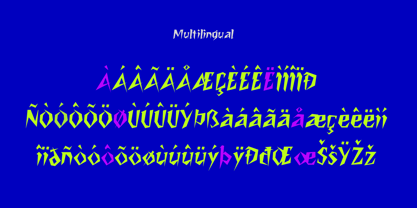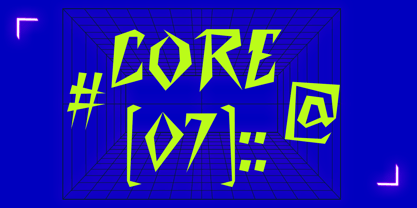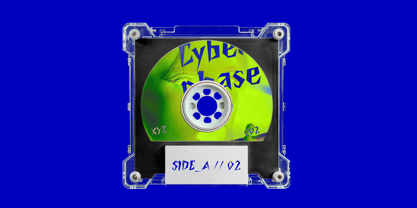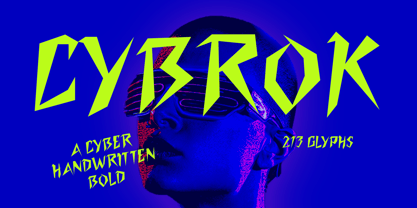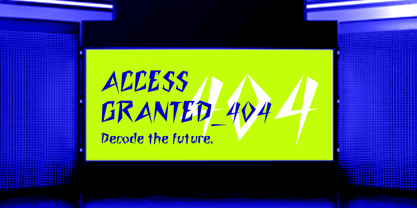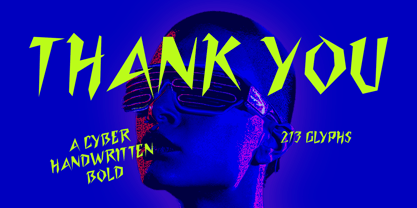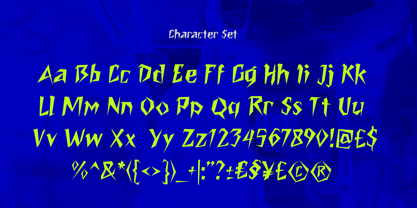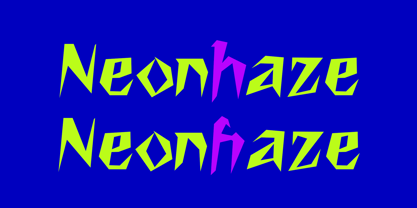
Cybrok
par Drizy Font
La famille de polices Cybrok a été conçue par Panca Ahmadi Hasan et publiée par Drizy Font. Cybrok contient 1 styles. En savoir plus sur cette famille
Cybrok – Cyber Handwritten Bold Font
Cybrok is a cyber handwritten bold font that blends futuristic energy with a raw, rebellious edge. Featuring bold, sharp letterforms inspired by cyberpunk aesthetics, this font is perfect for gaming, technology, sci-fi, branding, posters, streetwear, logos, album covers, and digital designs. Its unique cyber, punk, and handwritten style creates a powerful, high-impact look that stands out in any modern project.
Cybrok – Cyber Handwritten Bold Font features:
• Uppercase & Lowercase
• Punctuation & Numbers
• Multilingual
• Alternate
Concepteurs: Panca Ahmadi Hasan
Fonderie: Drizy Font